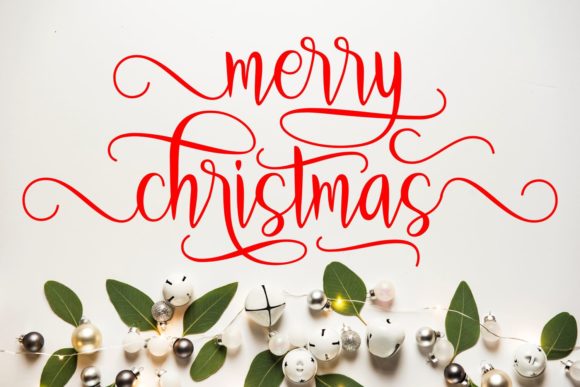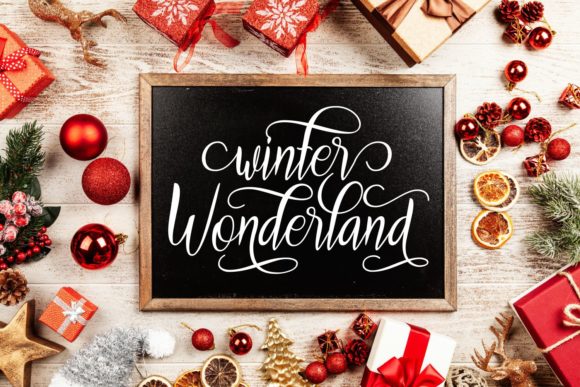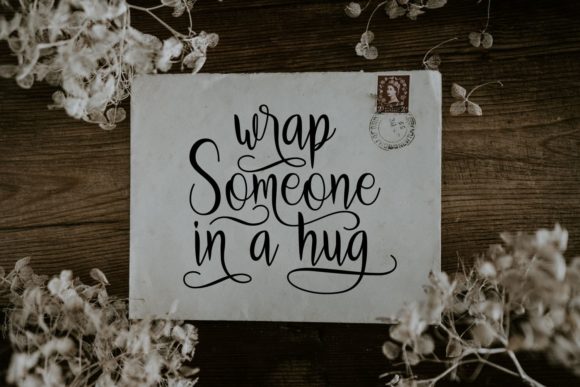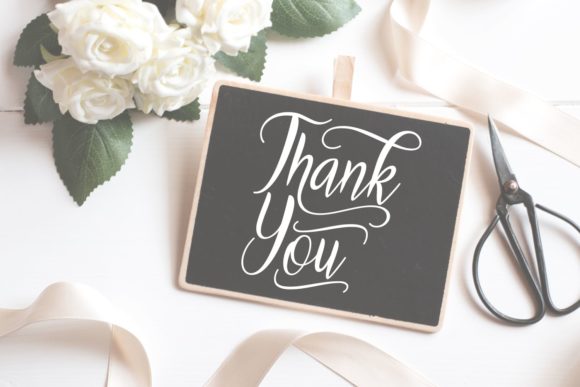
HomeScript FontsWarm Winter Wishes Font Script Fonts Warm Winter Wishes Font FacebookXPinterestWhatsApp Warm Winter Wishes Font Poster 2 Warm Winter Wishes Font Poster 3 Warm Winter Wishes Font Poster 4 Warm Winter Wishes Font Poster 5 About Warm Winter Wishes Font Warm Winter Wishes celebrates the coldest and coziest time of the year! Fall in love with its timeless charm. DOWNLOAD ON CREATIVE FABRICAThis font is sold and delivered by Creative Fabrica. Font Canyon may earn a commission if you buy through this link. People also explored Montana Belluci Font Natalle Font Pink Star Font Demulation Font Gram Font Tendencies Font Happy February Mandalike Font Moccalast Font 269 0 TagsWarm Winter Wishes Font Previous articleNostalgia Script FontNext articleCaroline Bellish Font LEAVE A REPLY Cancel reply Comment: Please enter your comment! Name:* Please enter your name here Email:* You have entered an incorrect email address! Please enter your email address here Website: Save my name, email, and website in this browser for the next time I comment. Personal Use Free Latifah Personal Use Free Read more about this font Arc Personal Use Free Read more about this font Clarisa Script Personal Use Free Read more about this font Hysteria Santa Personal Use Free Read more about this font BLOG To increase your work productivity, choose the most readable fonts. In today's fast-paced work environment, where digital communication and information consumption are integral to our daily routines, the choice of fonts can significantly impact... Free Fonts Risk: Why Free Fonts Can Be Dangerous for Designers Best Fonts for T-Shirt Design – Top 2025 Picks 5 Fonts That Will Dominate Design Trends in 2026